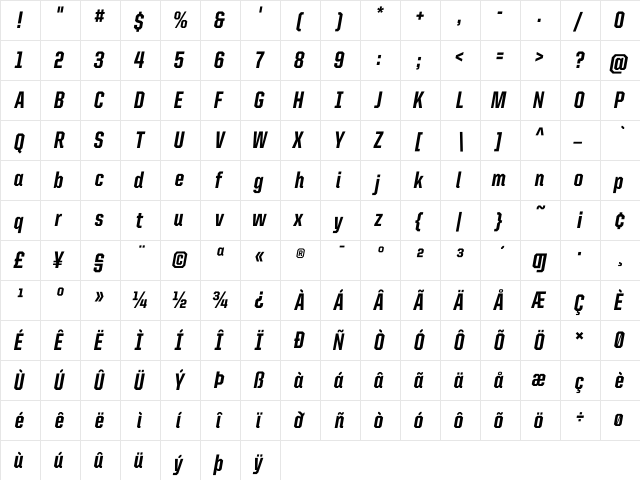
United Italic Cond Heavy Font Preview
| Foundry | House Industries |
| Designer | Tal Leming |
Design Context for United Italic Cond Typeface
United Italic Cond offers clean, dependable letterforms without strong stylistic allegiance, making it a practical choice for designers who need flexibility. Its italic angle brings a sense of urgency and motion to the letterforms. The condensed width makes it efficient for tight spaces without sacrificing legibility.
Pro Tip: Try United Italic Cond for annotation and caption copy alongside an upright companion — the contrast in angle creates a dynamic but ordered typographic system.